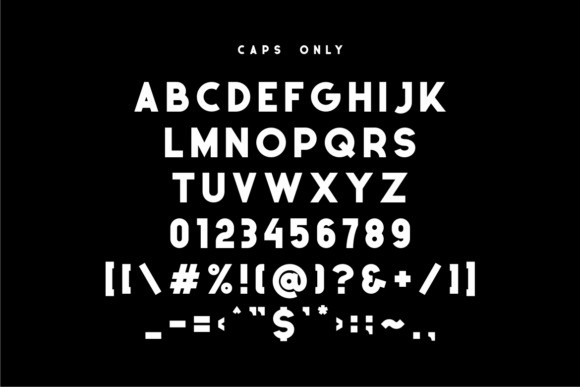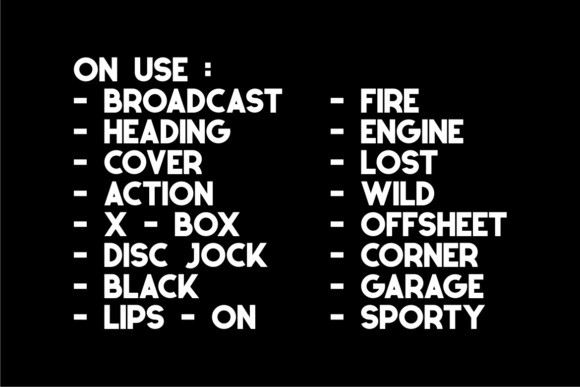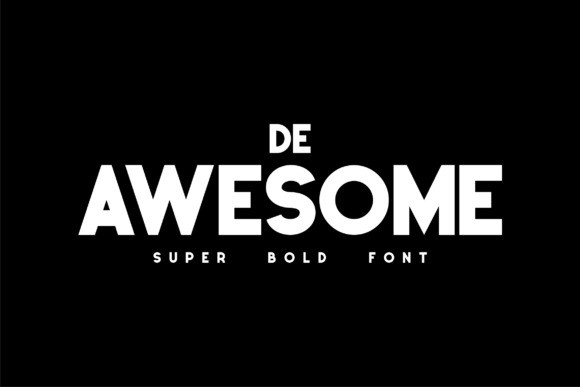
De Awesome Font
De Awesome Font is an eye-catching and kindly display font. It’s natural and simple style makes it incredibly fitting to a large pool of designs. The only limit is your imagination!